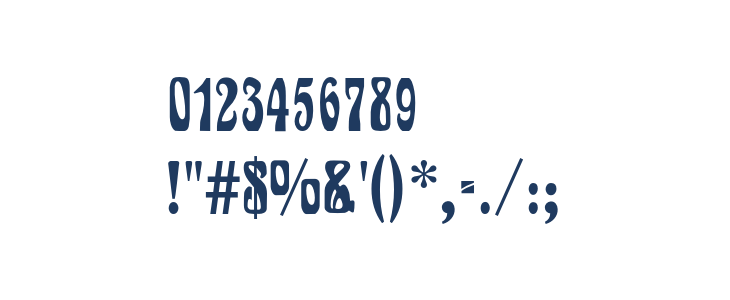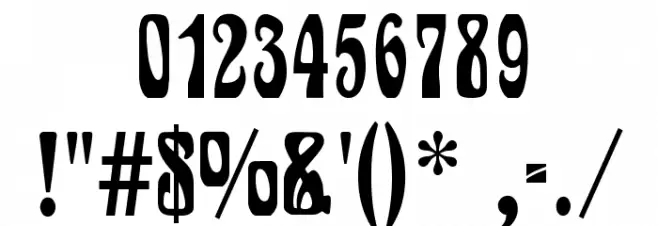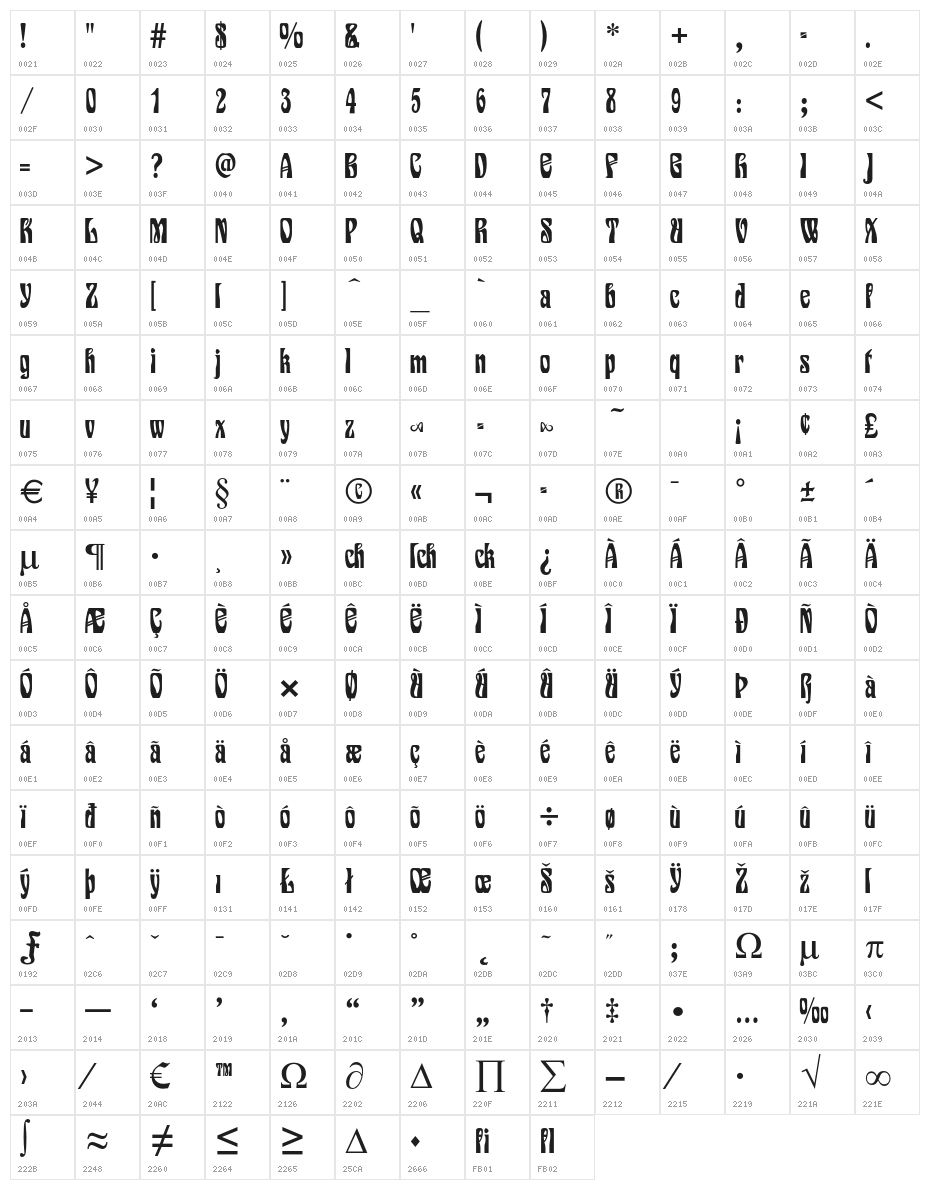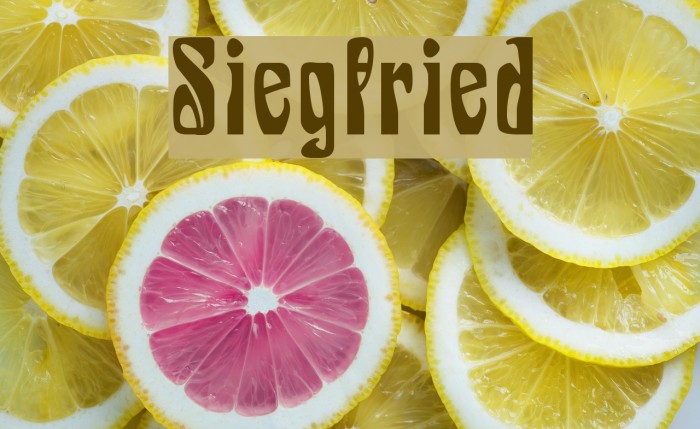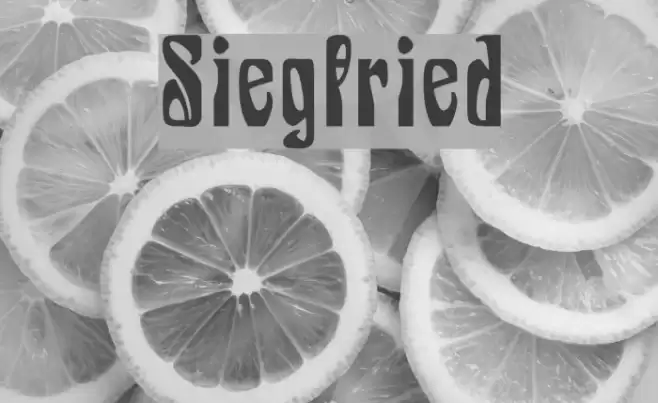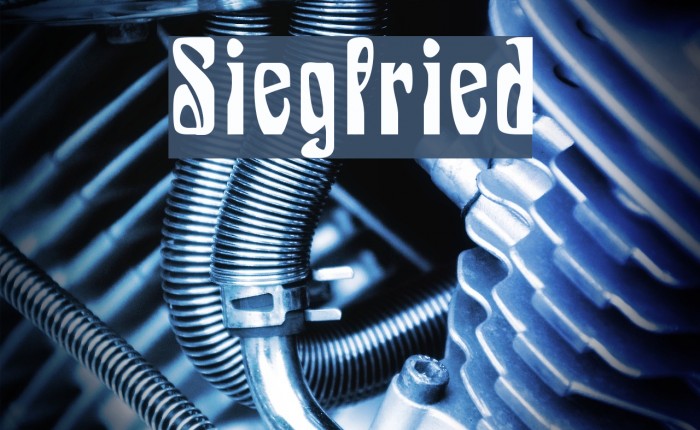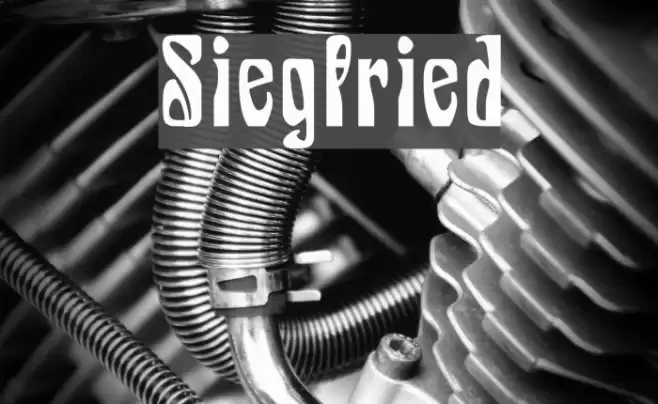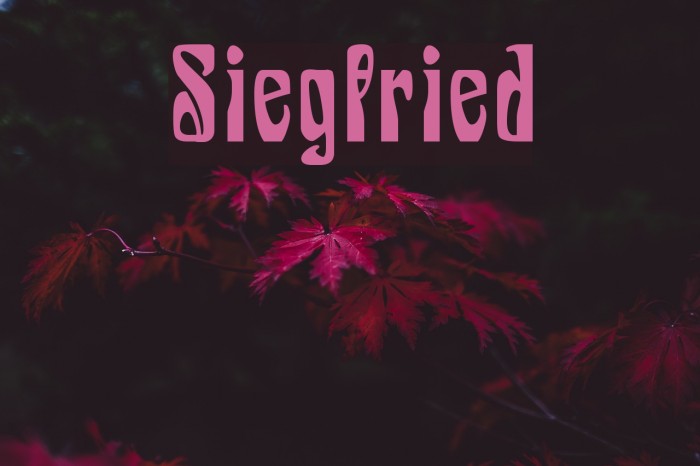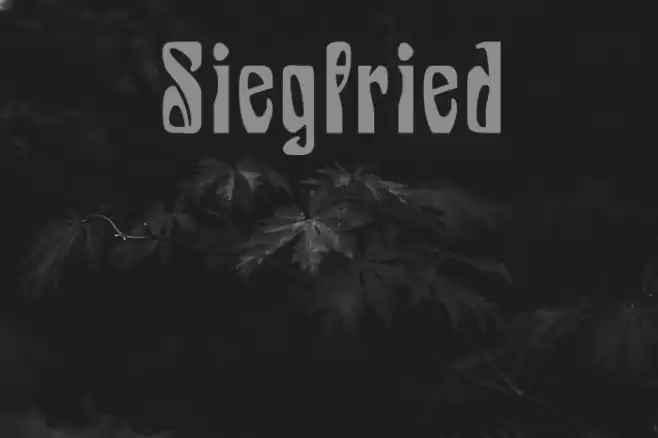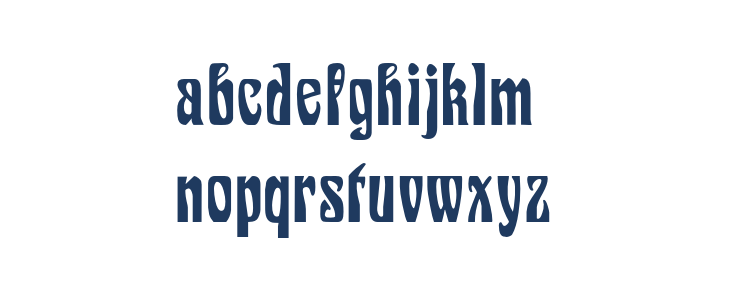
Siegfried Font
Siegfried Description
This font features a bold and decorative style with unique, artistic elements in each character. The uppercase letters have a strong presence with varying stroke widths and intricate details, giving them a dynamic and eye-catching appearance. The lowercase letters maintain a consistent style, offering a balance between readability and artistic flair. Numbers and special characters are designed to complement the overall aesthetic, with bold strokes and distinctive shapes. This font is ideal for projects that require a standout, artistic touch.